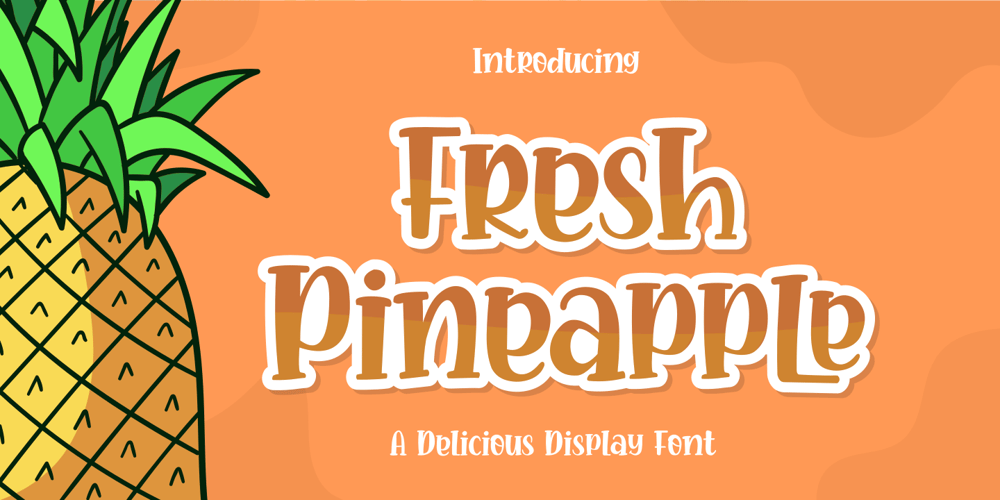
Fresh Pineapple Font Family was designed by Zeenesia Studio and published by Zeenesia Studio. Fresh Pineapple contains 1 styles and family package options. Fresh Pineapple, Delicious handwritten font. It is a beautiful quirky font that perfect for a lettering projectlike t-shirt design, mugs, advertisements, cutting vinyl, silhouettes, book covers, posters, business cards, social media and more. It supports multiple languages and offers PUA encoding. The doodles make this font so perfect.Hope you love it